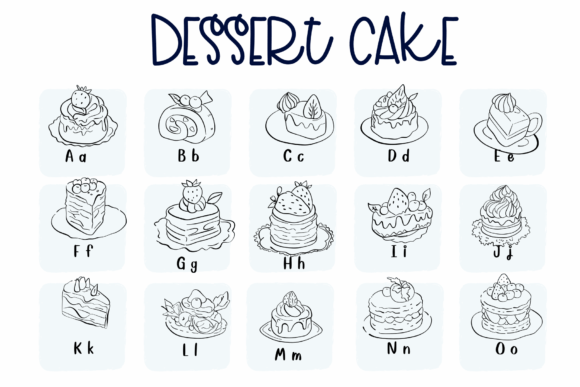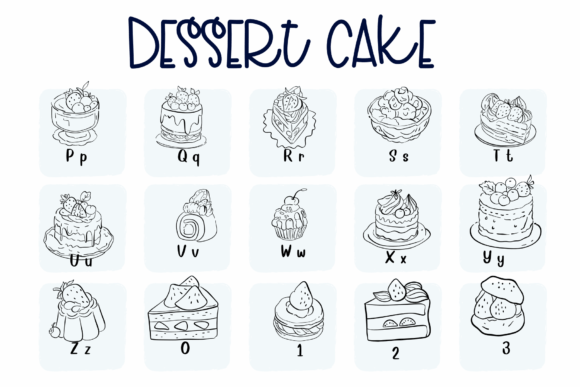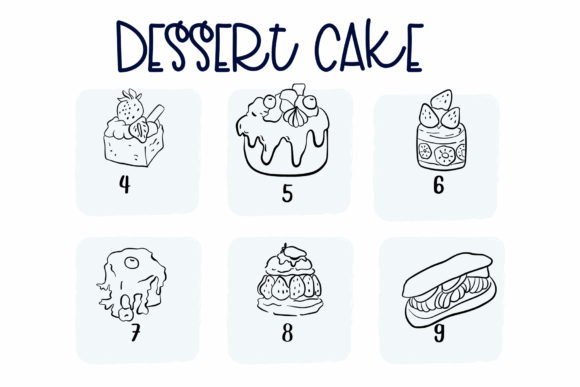
Introduction to Dessert Cake Font
Dessert Cake is a cute dingbat font with a delicious theme.
This font can enhance your creative projects such as wedding invitations, DIY, crafts, decorations, logos, and many other creative ideas .
Key Features of Dessert Cake Font
Why Choose Dessert Cake Font?
Dessert Cake Font offers exceptional quality and versatility, making it a valuable addition to your design toolkit. Whether you’re creating for personal projects or commercial use, Dessert Cake Font delivers professional results.